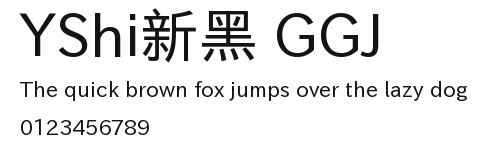
YShi新黑 GGJ Preview
• Font Name: YShi新黑 GGJ
• Full Font Name: YShi新黑 GGJ
About YShi新黑 GGJ.ttf
YShi新黑 GGJ.ttf is a modern, elegant sans-serif font designed for ultimate readability and visual harmony. Perfect for branding, headlines, web design, and print materials.